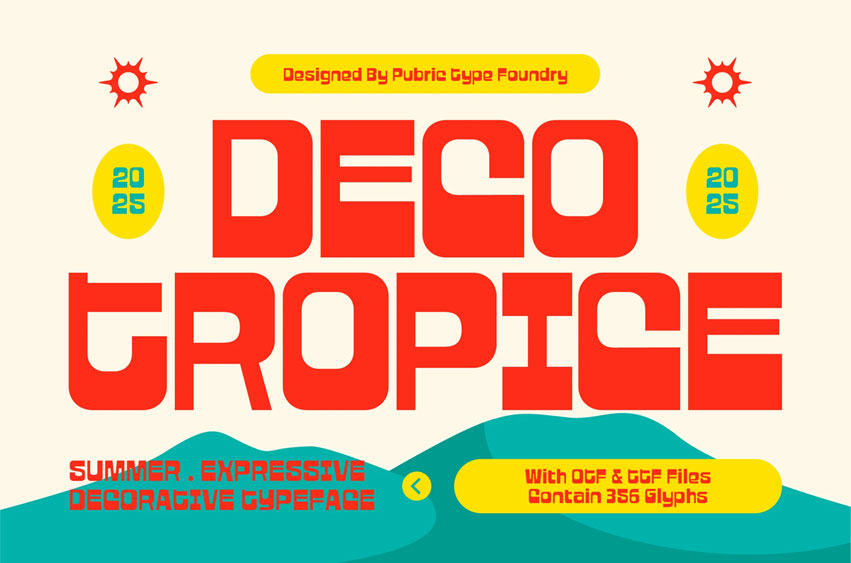
Decotropice Font
Decotropice Font is an experimental font with thick, unique shapes that feel fresh and fun. Ideal for summer designs, music posters, or retro-modern themed projects.
Ideal for headlines, logos, editorials, packaging, quotes, films, games, album covers, books, and promotional materials. This font ensures your design stands out in any setting.